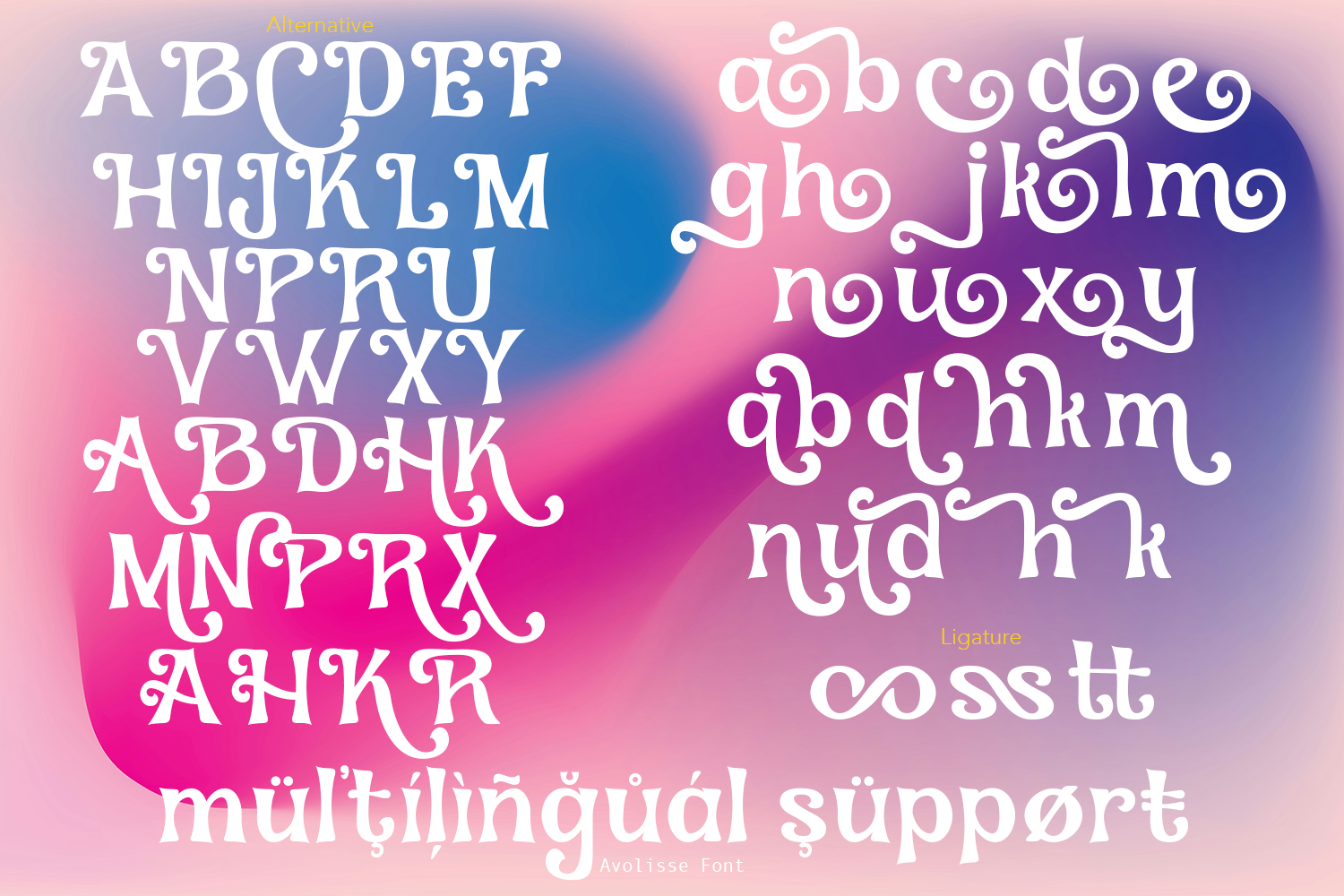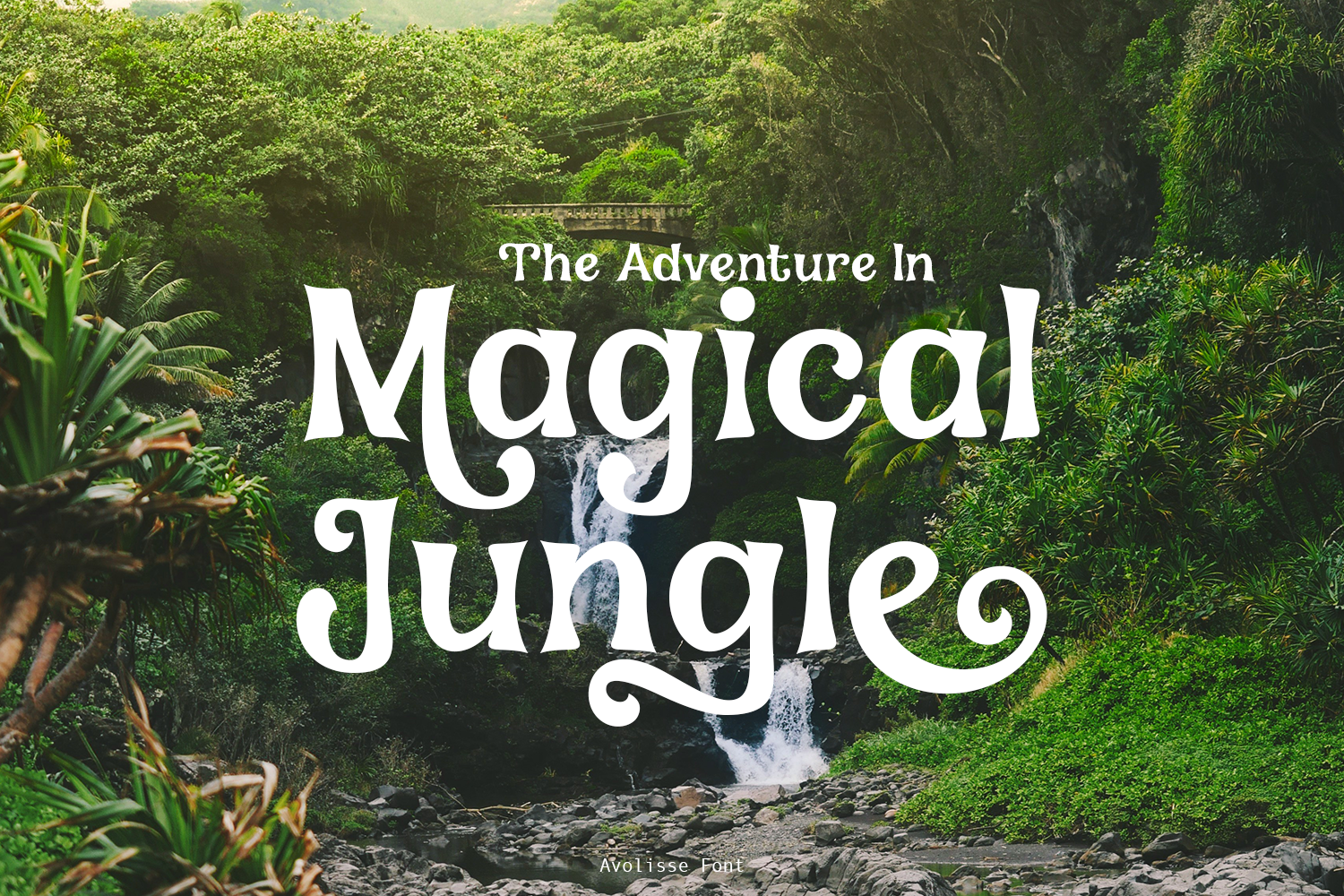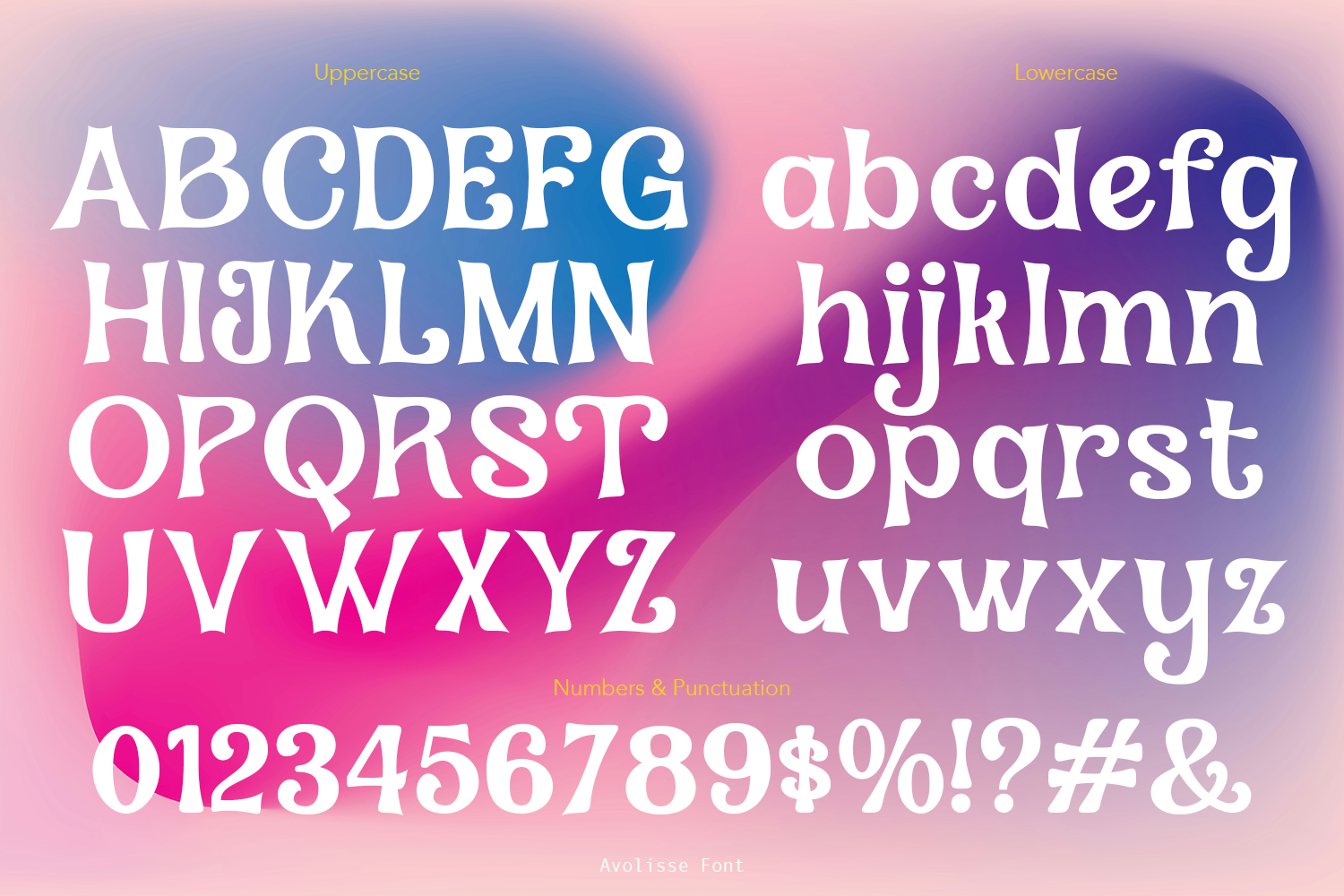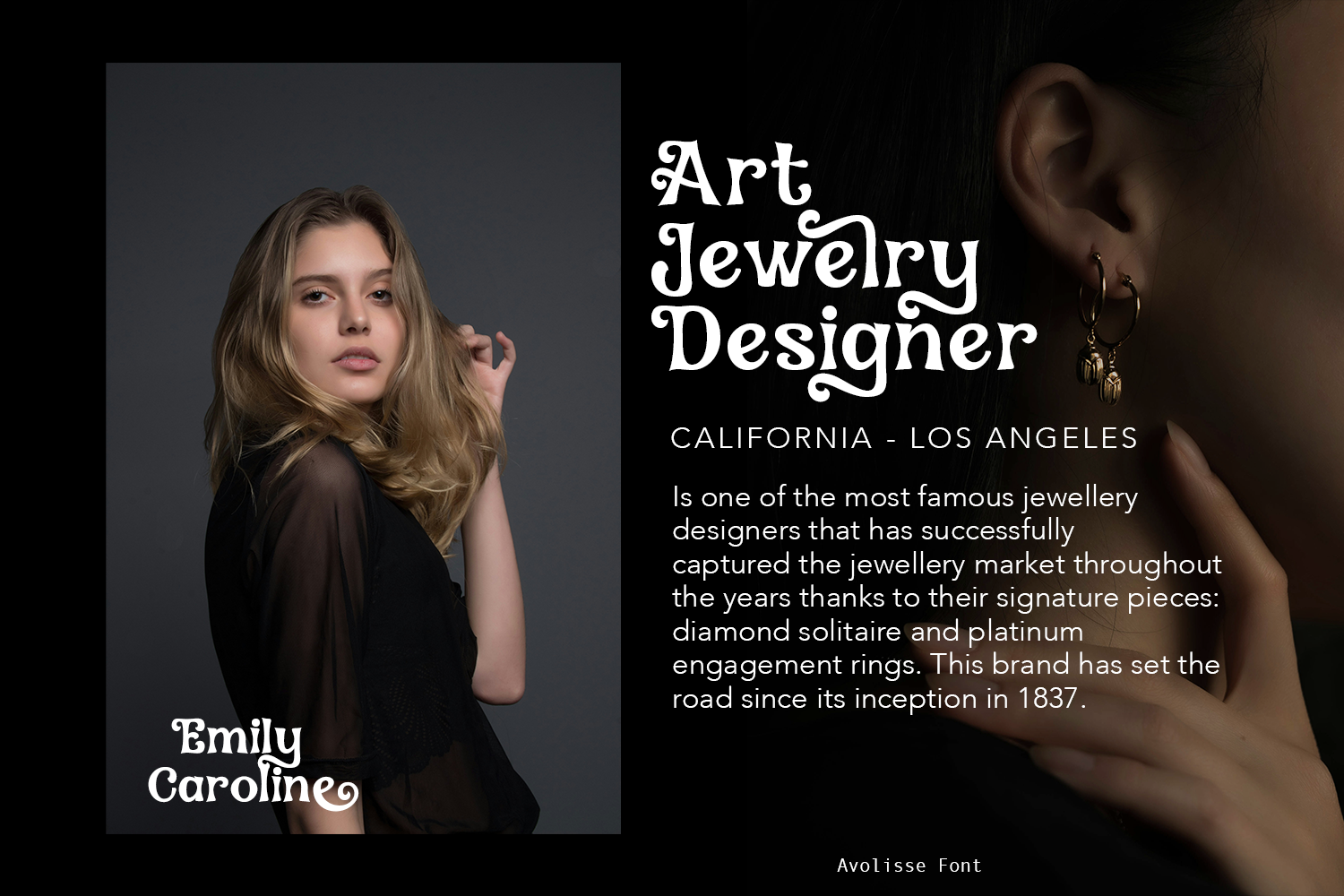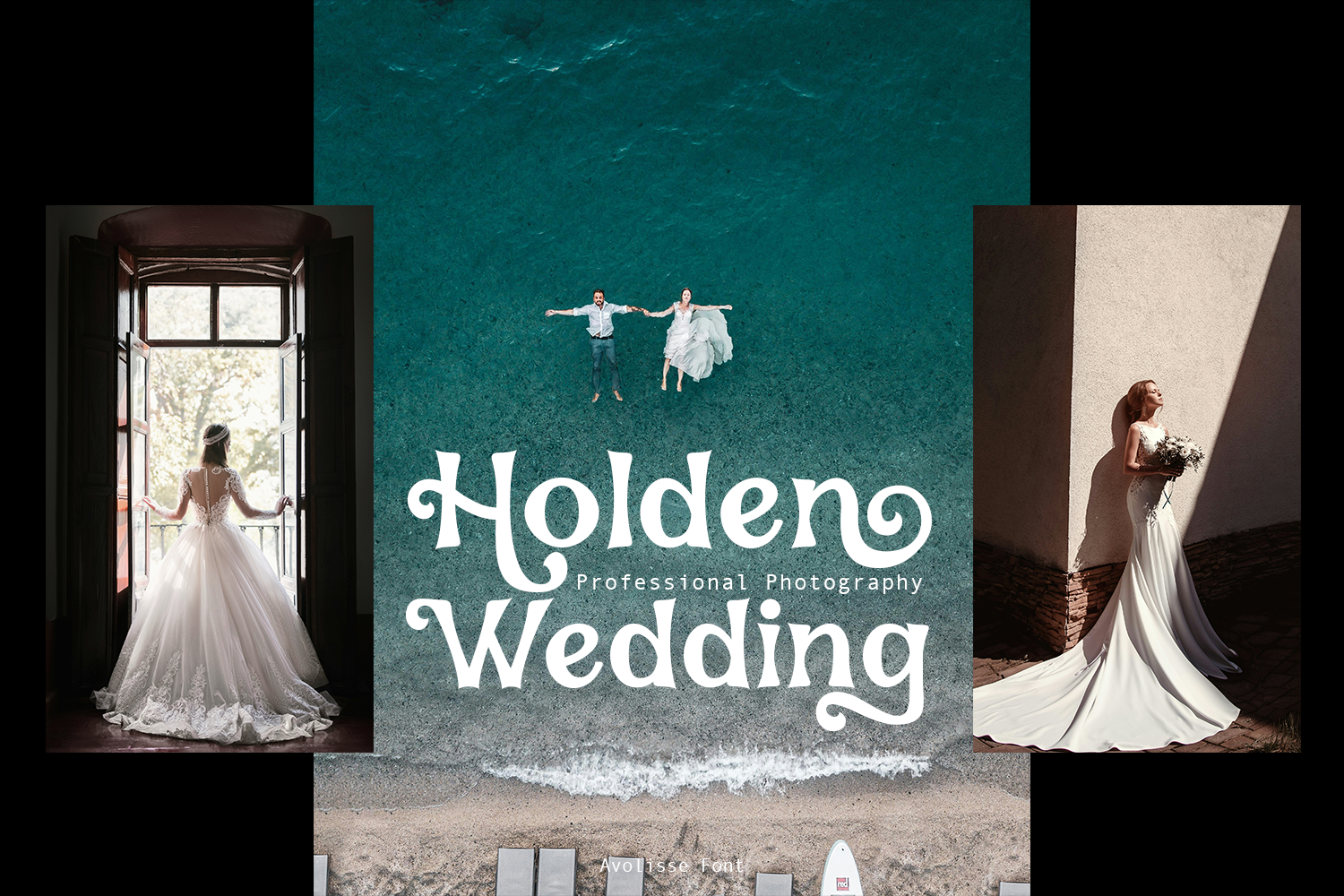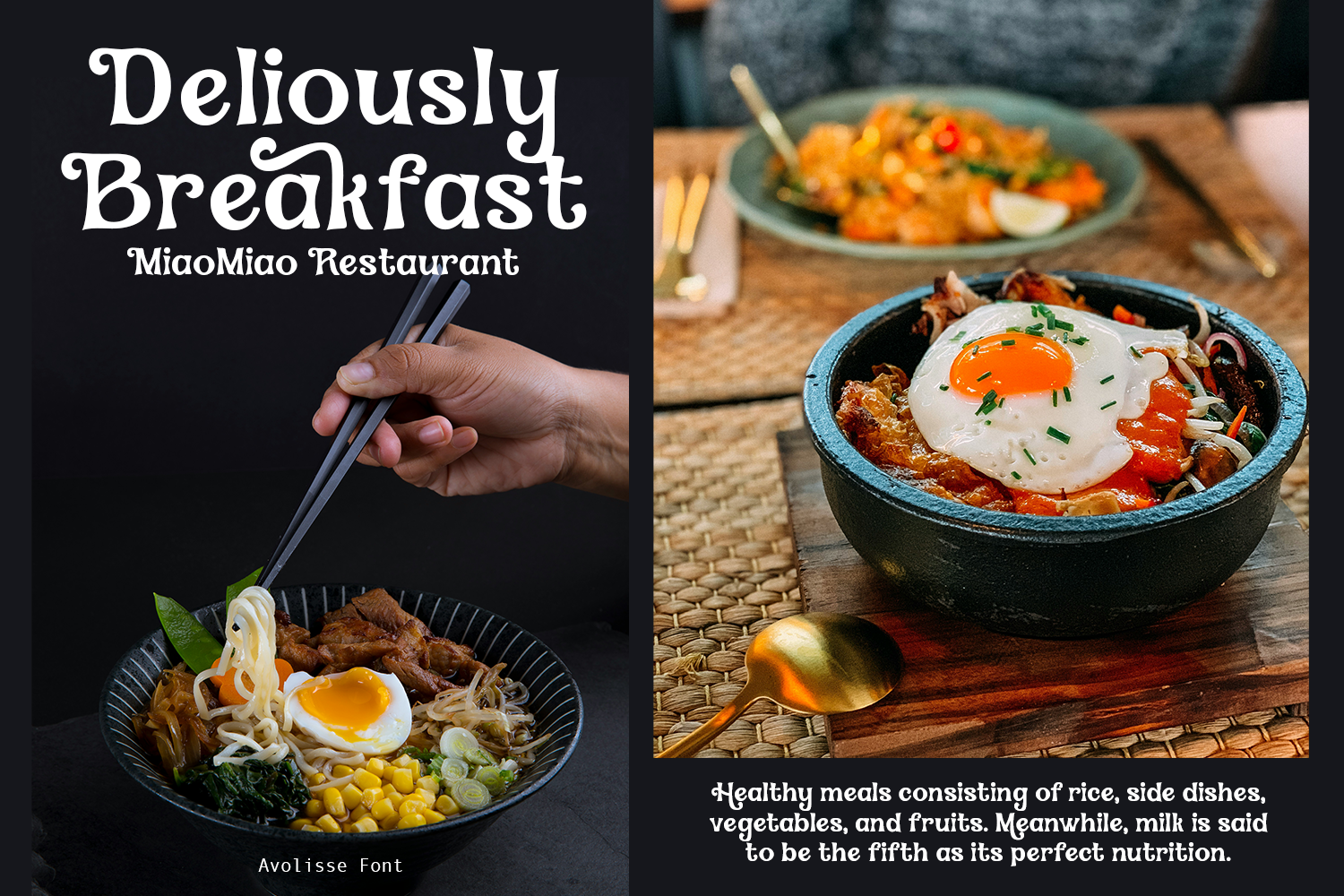
Avolisse Classic Font
Avolisse is a Magical Classic font 80’s style with sharp and blunt ends. Classic and refined you can explore and combine creating rhythm for comfortable reading. This font perfect for any projects, such logotype, stickers, greeting / wedding cards, packaging design, headlines, brand identity, t-shirt, posters, magazines, books, Instagram, websites, and many more.
• Uppercase & Lowercase
• Number & Symbol
• International Glyphs
• Multilingual support
• Alternative
• Ligature